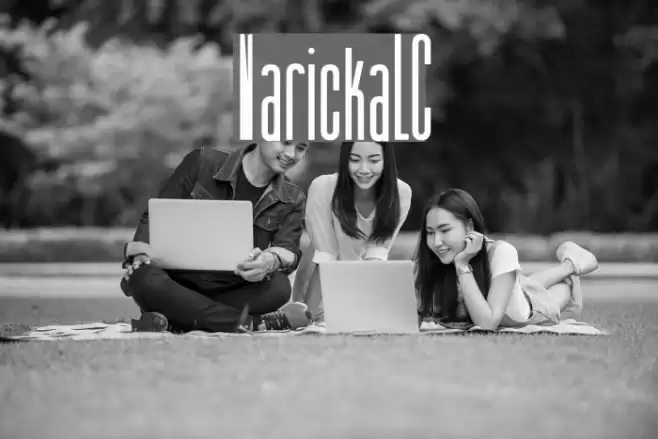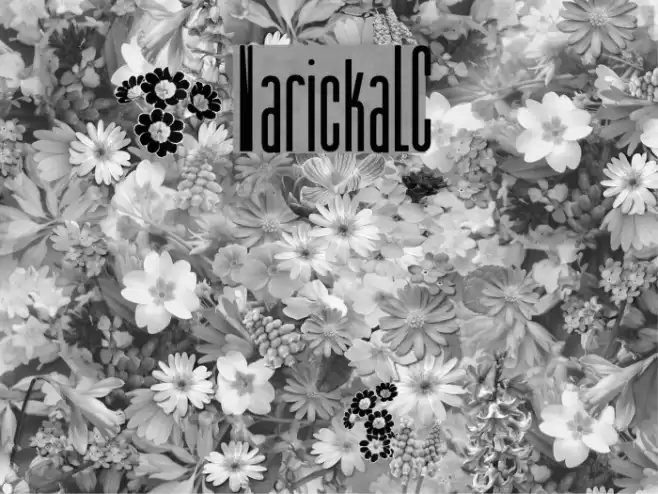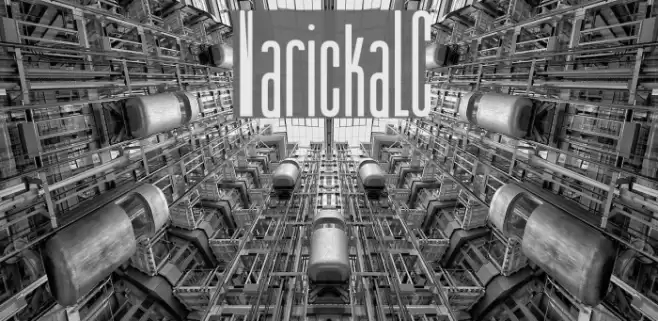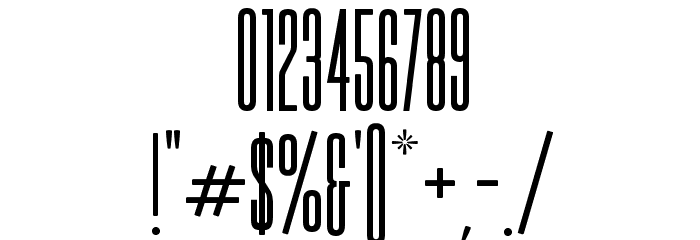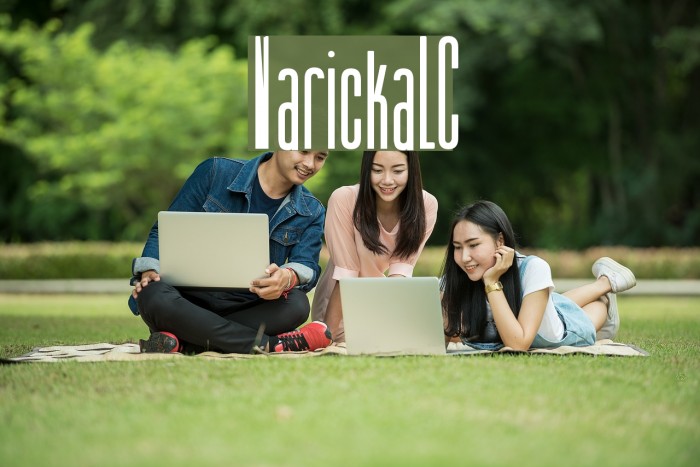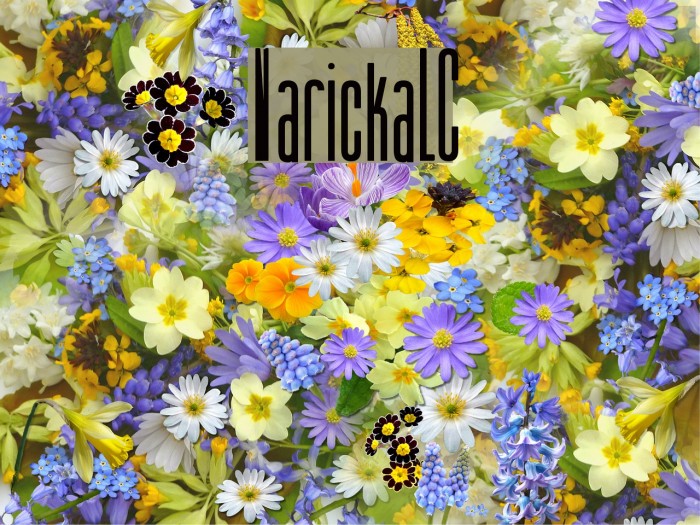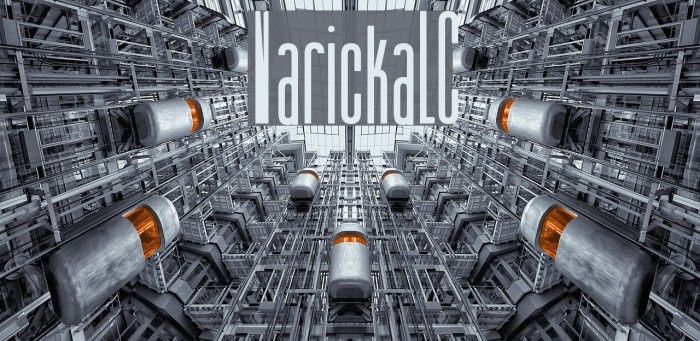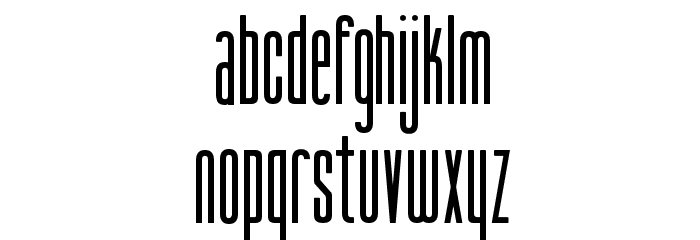
VarickaLC Font
VarickaLC Description
This font features a tall, narrow design with a modern and sleek appearance. The characters are elongated with a consistent stroke width, giving it a clean and sophisticated look. The uppercase letters are particularly striking, with a uniform height that enhances the font's vertical emphasis. The lowercase letters maintain the same narrow structure, ensuring readability while preserving the overall aesthetic. Numbers and special characters are designed to match the font's streamlined style, making it versatile for various applications. The font's unique design makes it suitable for projects that require a contemporary and stylish touch.
A tall, narrow font with a modern and sleek design from Uncategorized fonts.
- Version: Version 1.000 02/13/2010 Based on 'Varick'. From "Decorative Condensed Alphabets", by Dan Solo, Page 94. The lower case has b
- Character Spacing: Tight